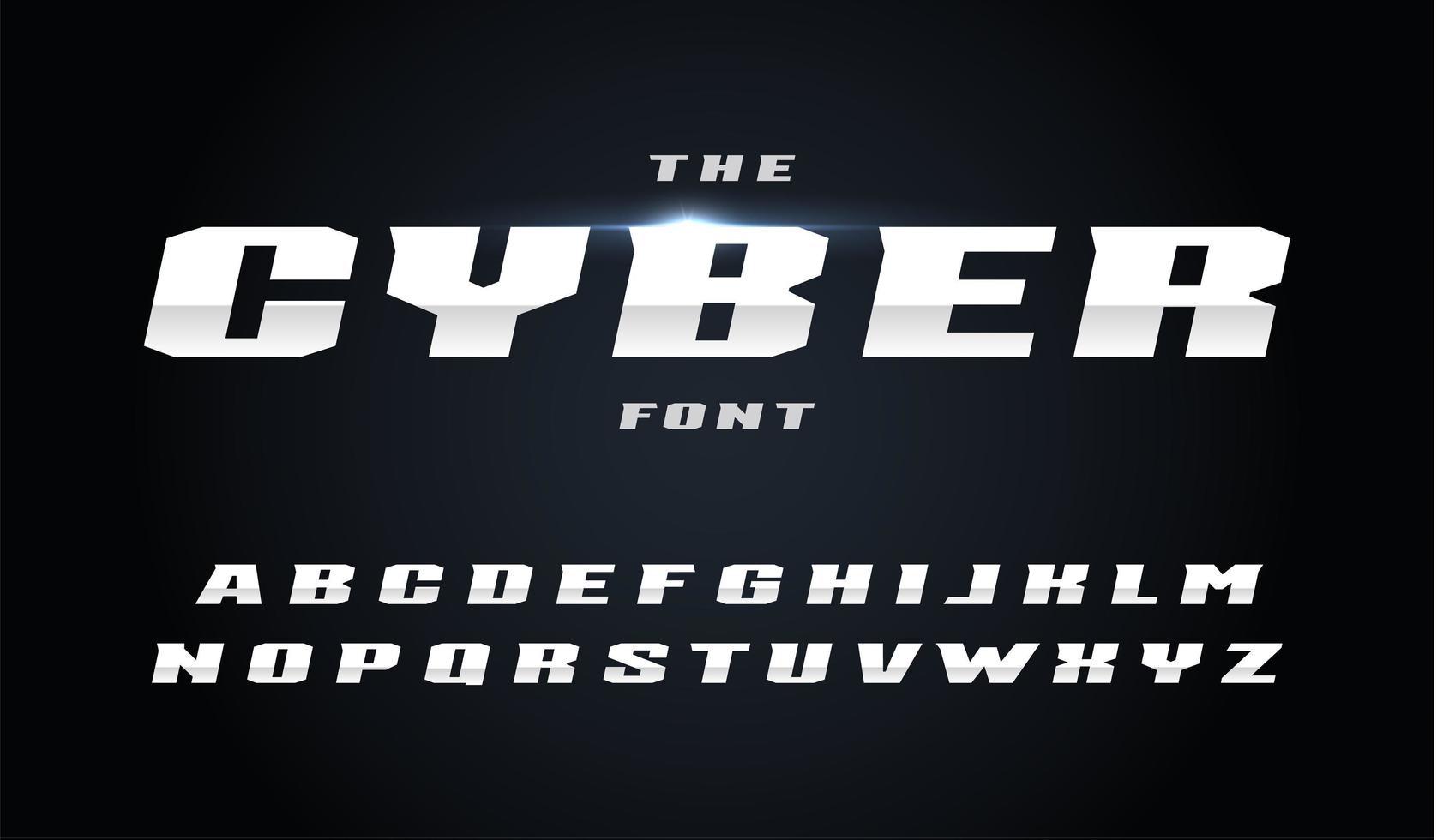
Cyber style letters set. Bold italic steel alphabet with slant. Font for fast and power effect, auto sport and new technology design. Vector typography design on black background. Pro Vector